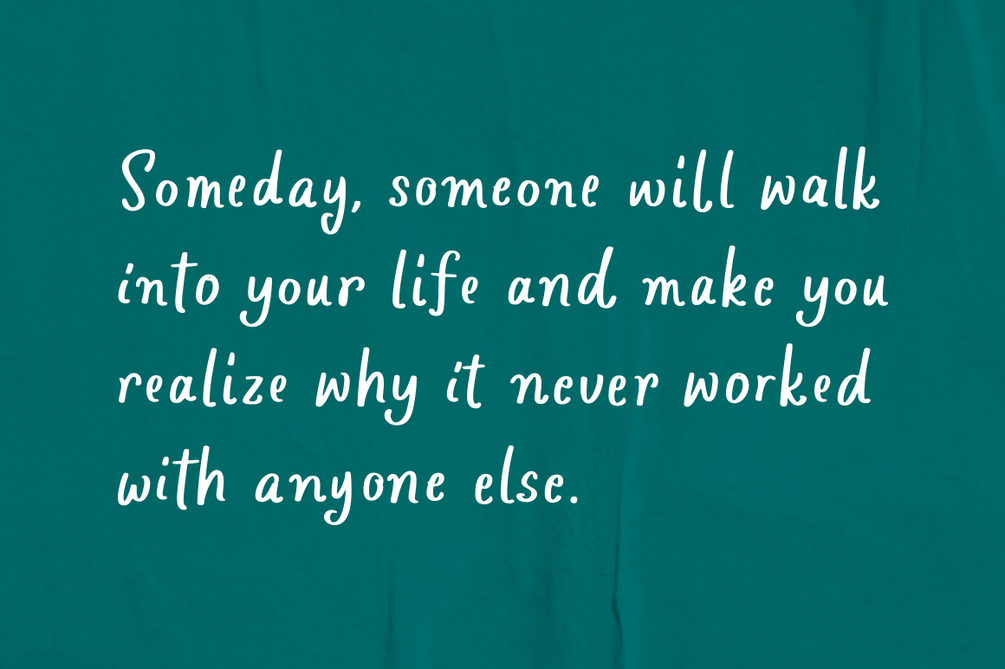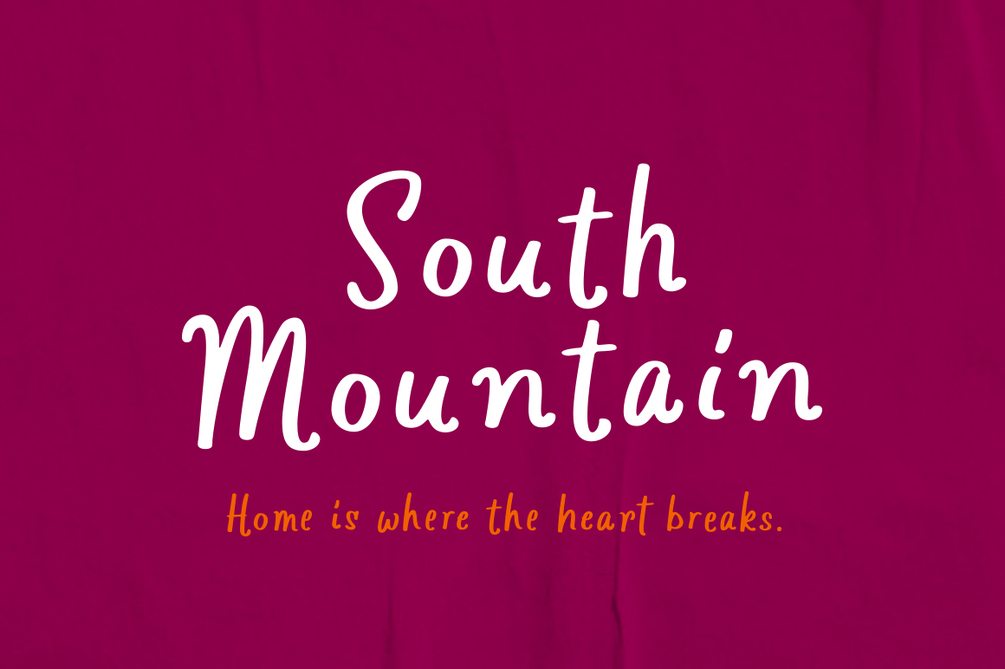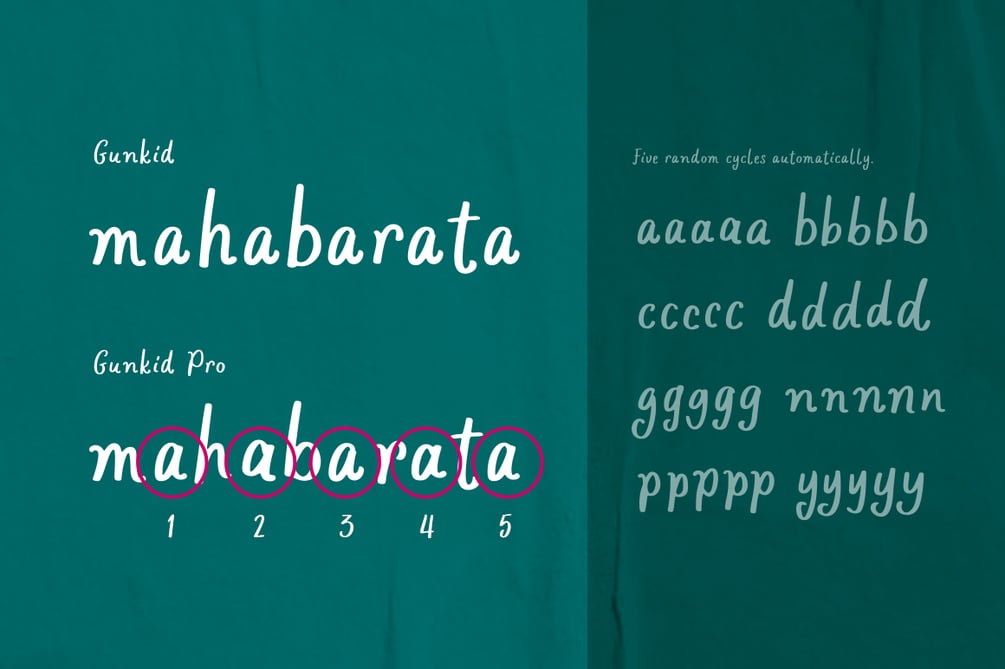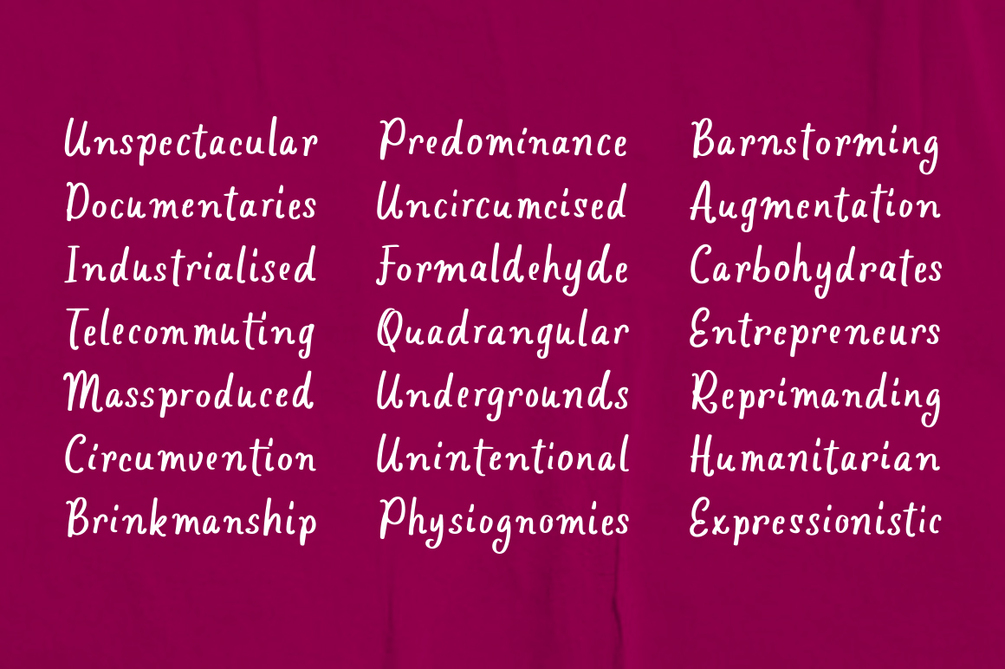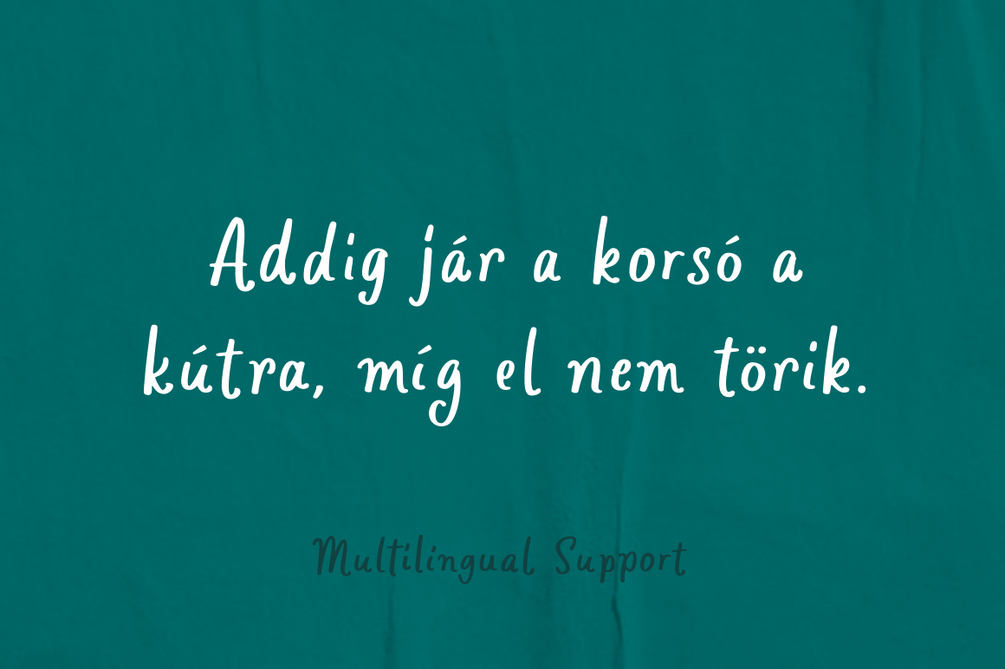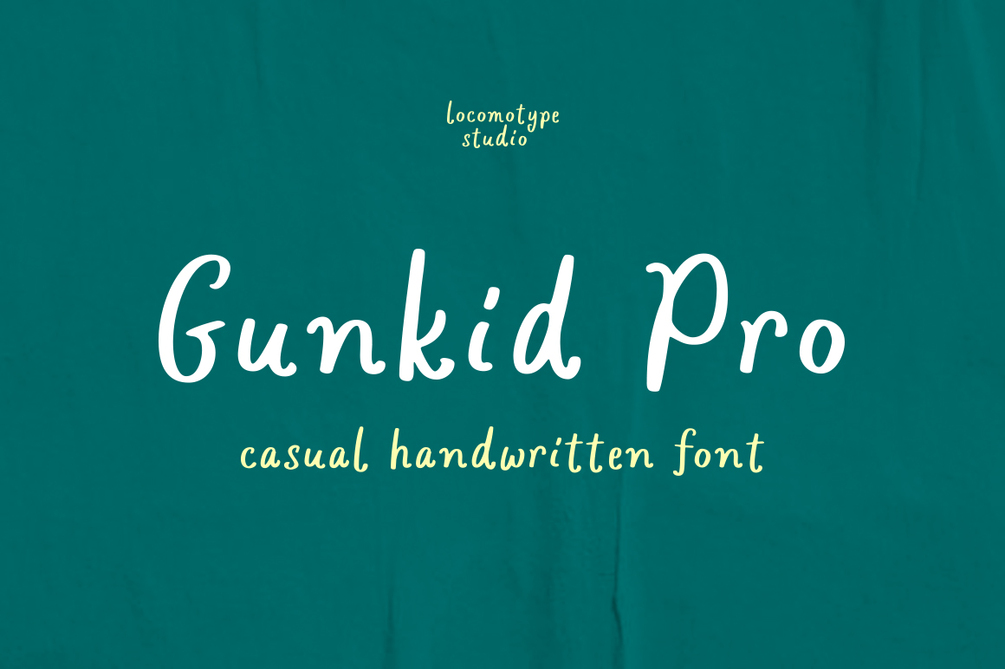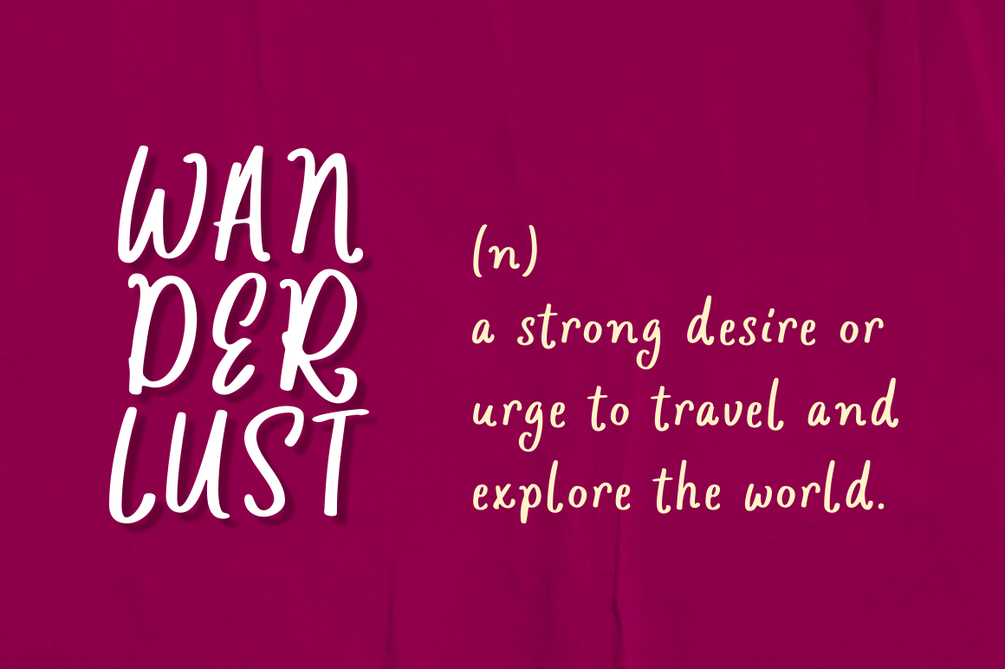
Gunkid Pro
Gunkid Pro font is a brand new free font created by Locomotype based a casual handwritten style. It feels very warm and unique especially when you want to create a personal design like a diary, quote poster, Instagram feed, Facebook updates etc.
It is an improved version of Gunkid font, which is included with more interesting special features. Gunkid Pro will look very natural because of the OpenType feature that allows the sequence of letters to change automatically. Make sure Contextual Alternates is enabled to access this feature.